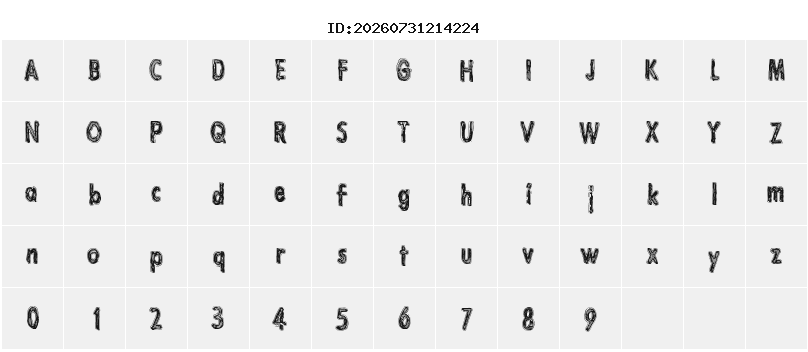
Lazarus Oz Preview
• Font Name: Lazarus Oz
• Full Font Name: Lazarus Oz
About Lazarus Oz.ttf
Lazarus Oz.ttf is a modern, elegant sans-serif font designed for ultimate readability and visual harmony. Perfect for branding, headlines, web design, and print materials.